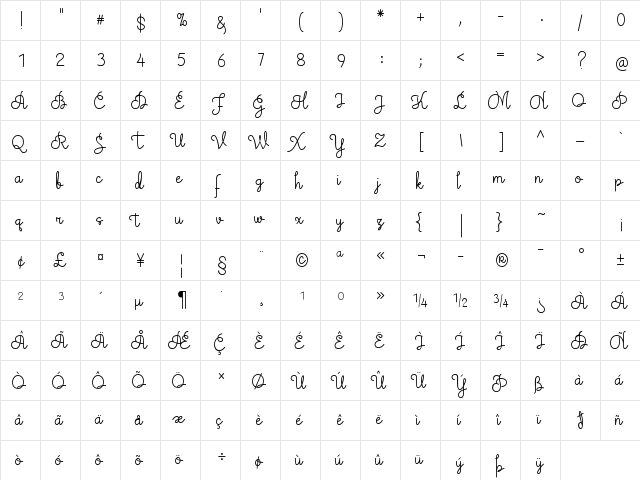
Theodista Decally Regular Font Preview
Theodista Decally Regular
Theodista Decally Regular Font Details
Design Context for Theodista Decally Typeface
Theodista Decally is a composed and adaptable typeface that performs quietly and consistently across a wide range of design contexts.
Pro Tip: Pair Theodista Decally with a font of contrasting weight or personality to build a more expressive typographic hierarchy.